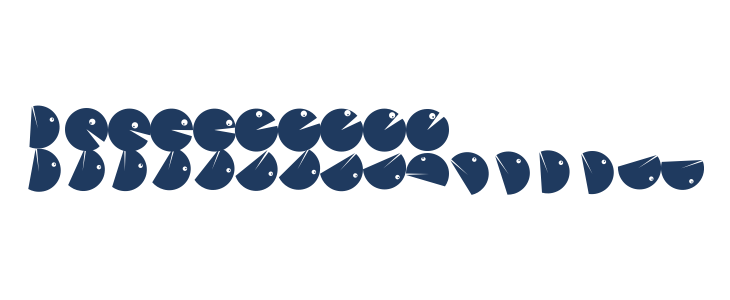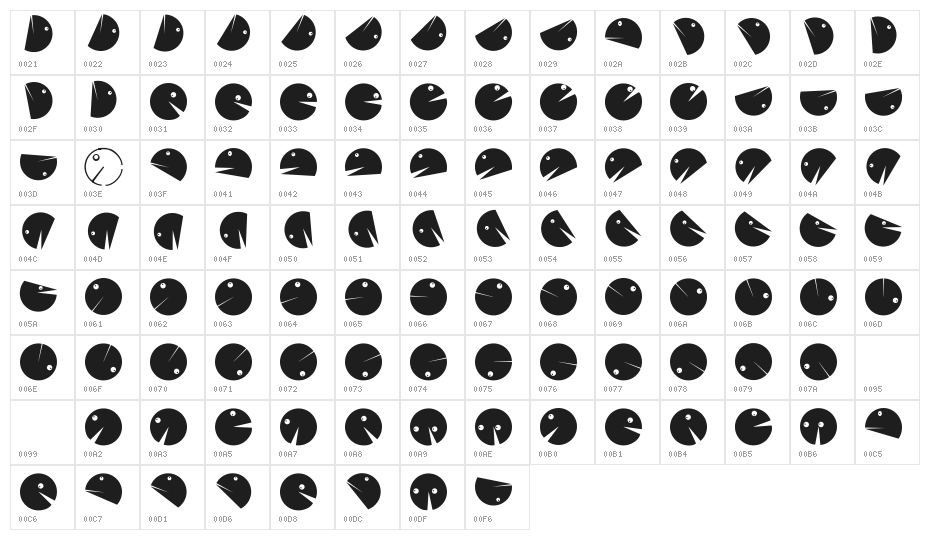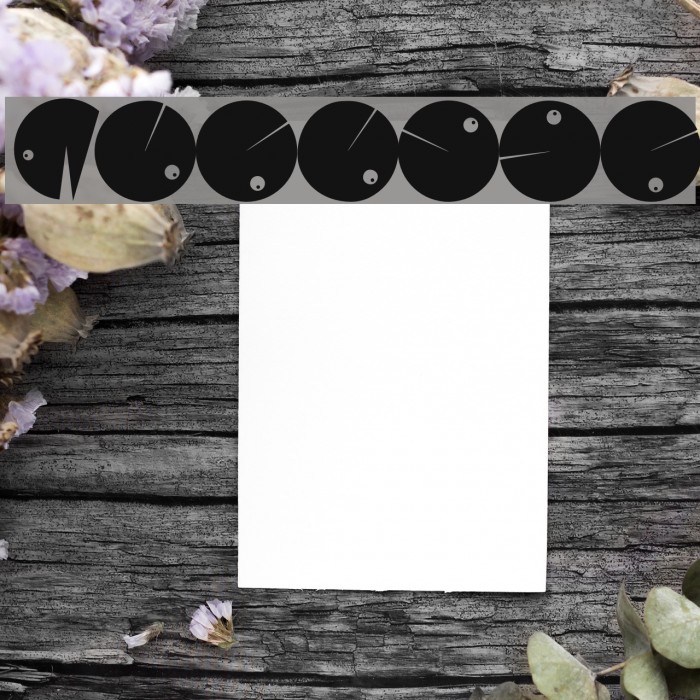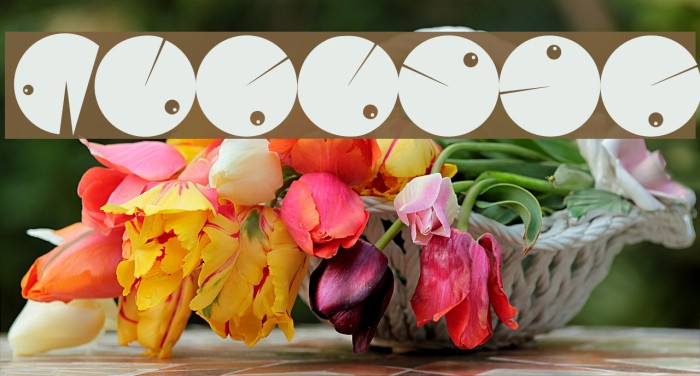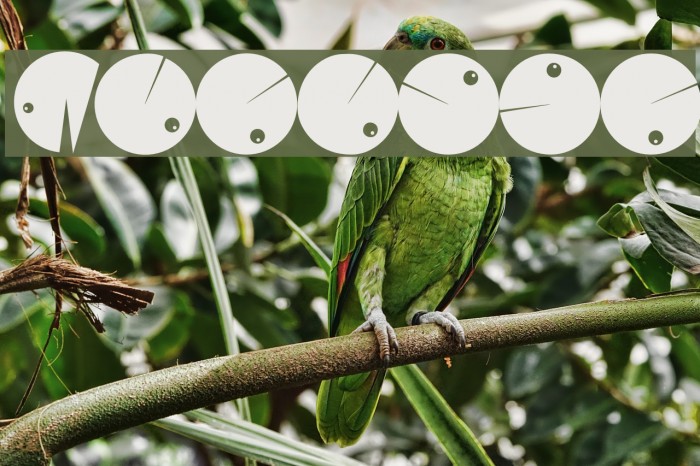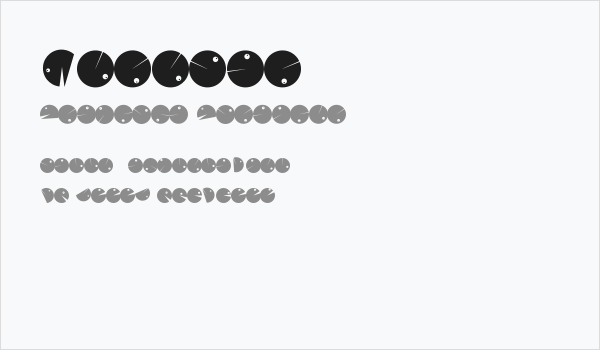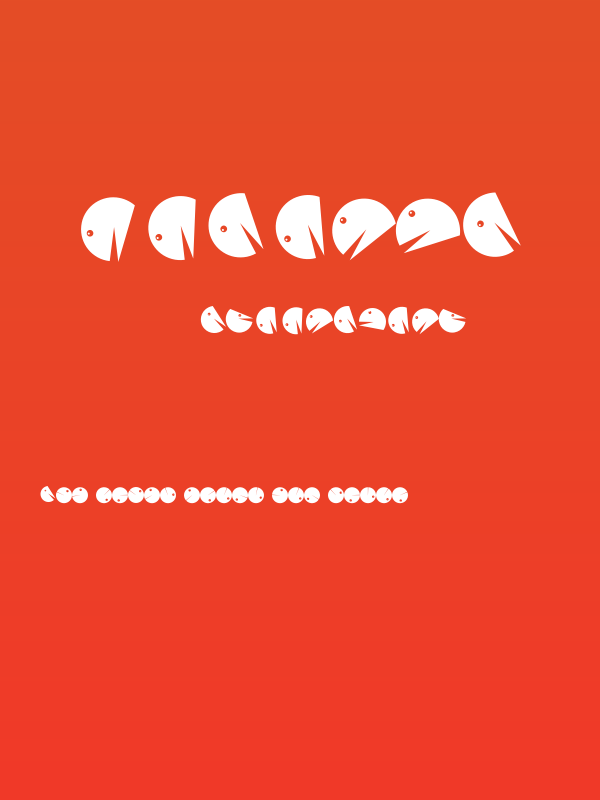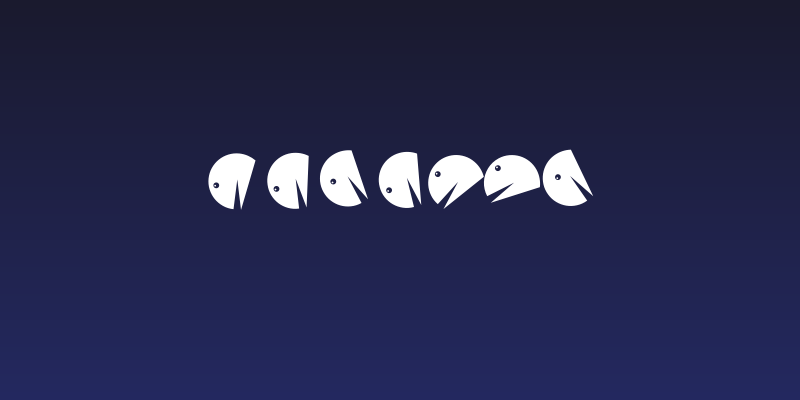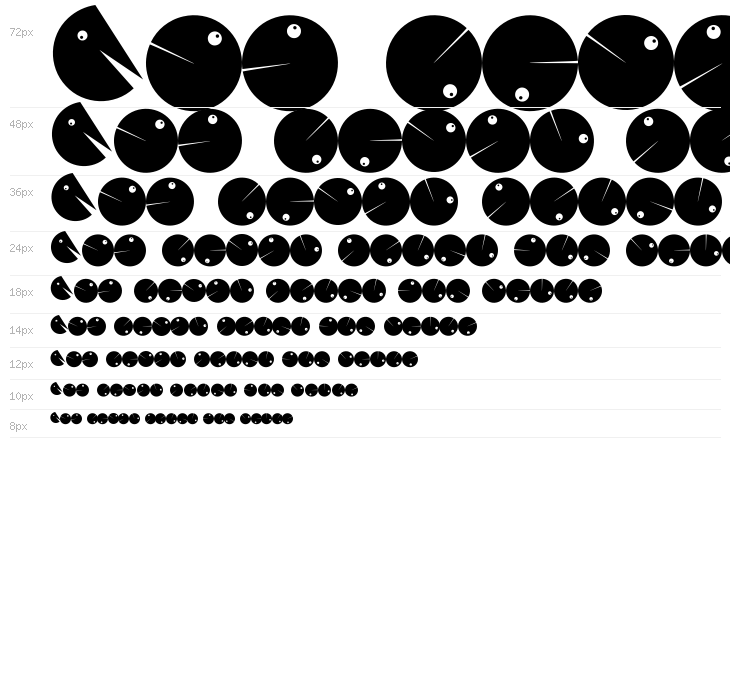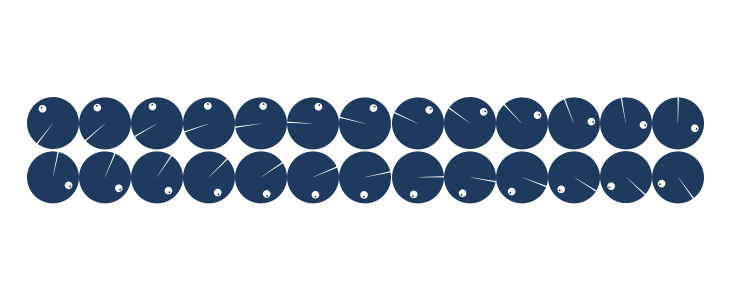
Morphes Font
Morphes Description
This is not a valid font. The image consists of a series of abstract shapes resembling a Pac-Man character, with variations in the orientation and size of the 'mouth' opening. These shapes do not correspond to any recognizable alphabet or numerical system and lack the necessary elements to form a coherent typeface. The design is purely decorative and does not serve the functional purpose of a font.
| Use Case | Decorative art, digital media |
| Proposed Projects | This design could be used for decorative purposes, such as in graphic art or as a playful element in digital media projects. |